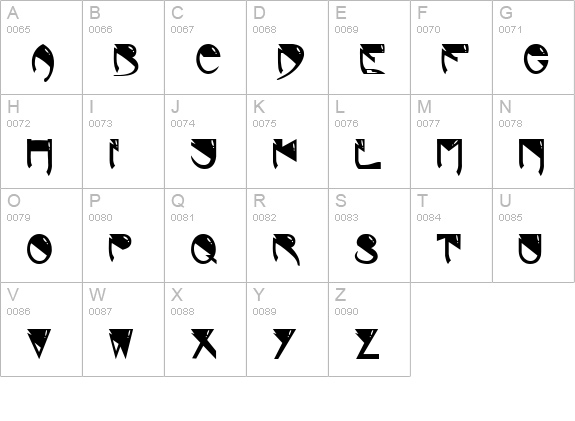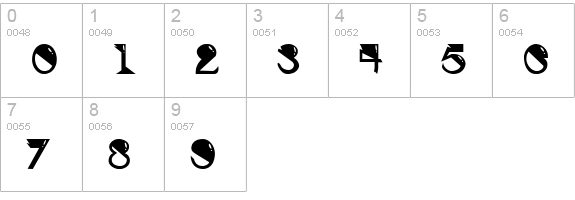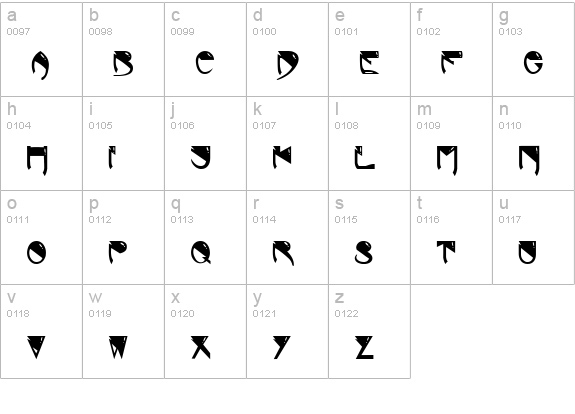
Alien Bold is a strong, high-contrast variant in the Alien typeface family \xE2\x80\x94 well suited to headlines, attention-grabbing titles, and strong calls-to-action.
Alien Bold font is a futuristic and bold typeface that exudes a sense of otherworldly mystery and intrigue. Its sleek and modern design makes it perfect for a wide range of creative projects, from sci-fi themed posters to cutting-edge branding materials. With its sharp edges and unique letterforms, Alien Bold font captures the essence of extraterrestrial aesthetics, making it a standout choice for those looking to add a touch of the unknown to their designs. The best part? Alien Bold font is completely free to download at FontsMarket.com, giving you easy access to this striking typeface for all your design needs. Embrace the unknown and bring a touch of the alien into your projects with Alien Bold font today!